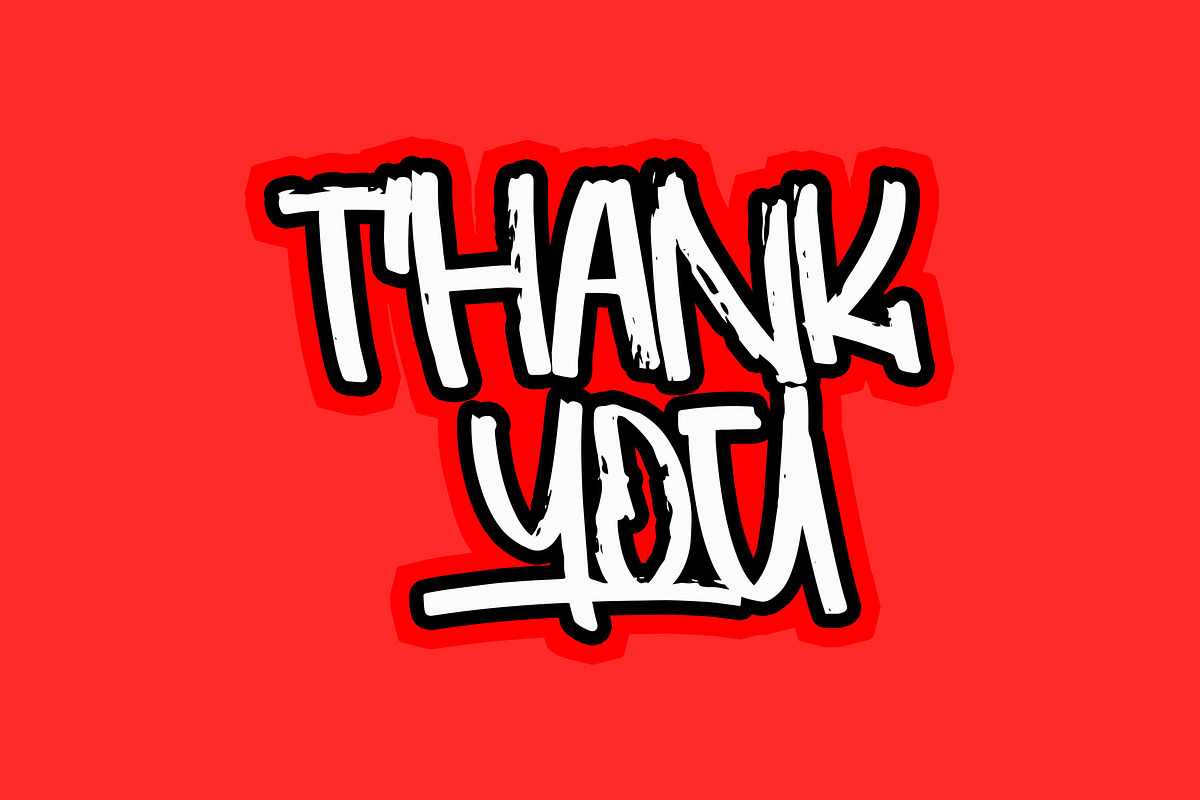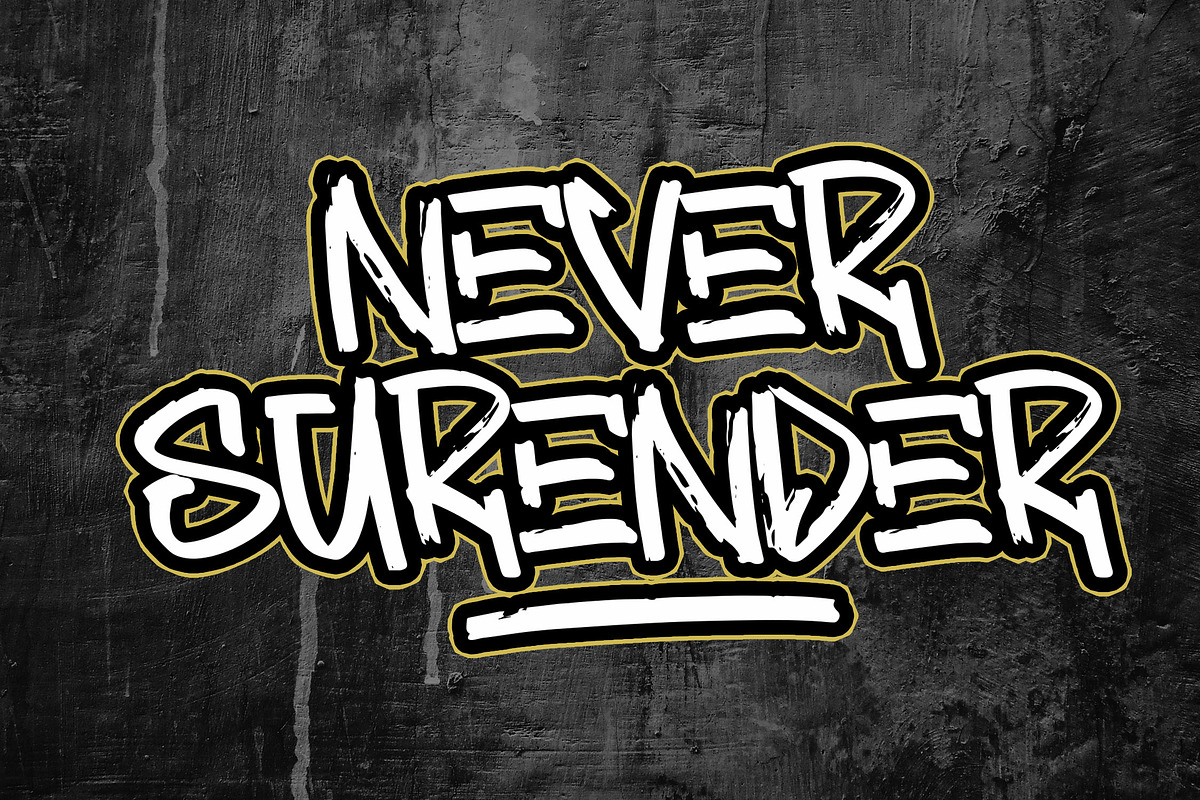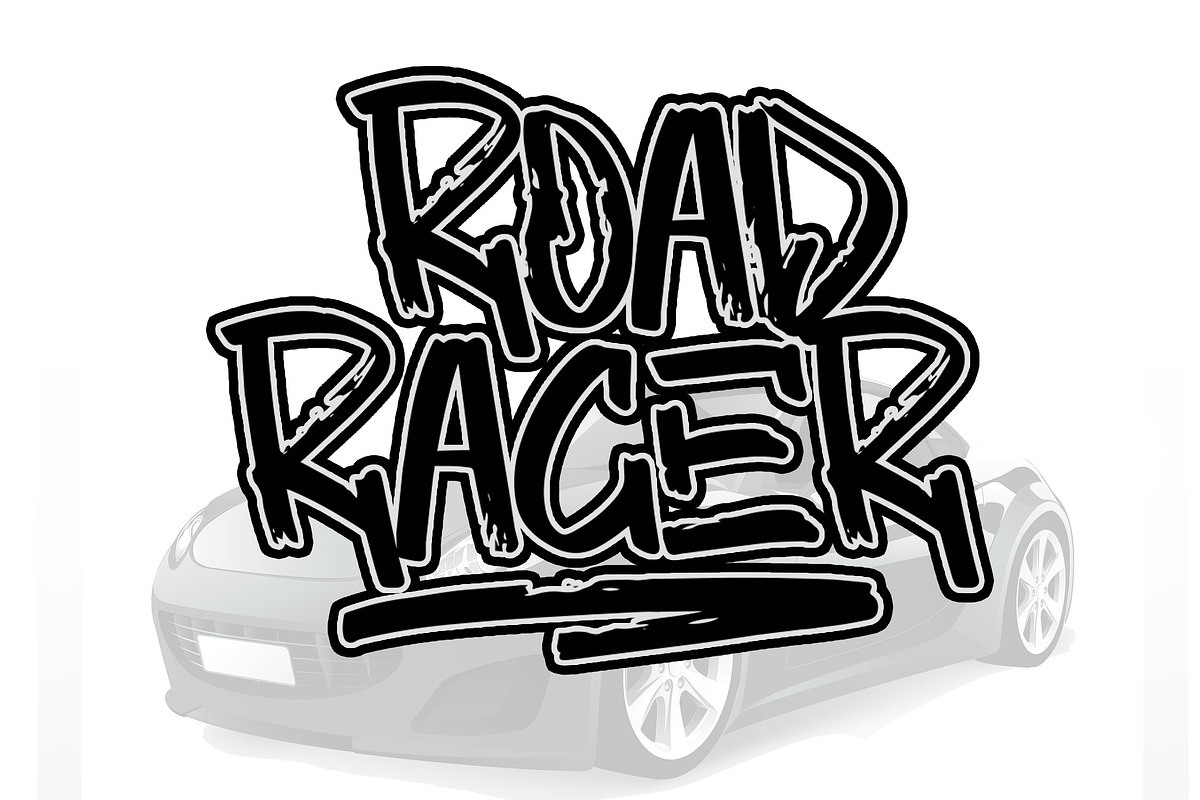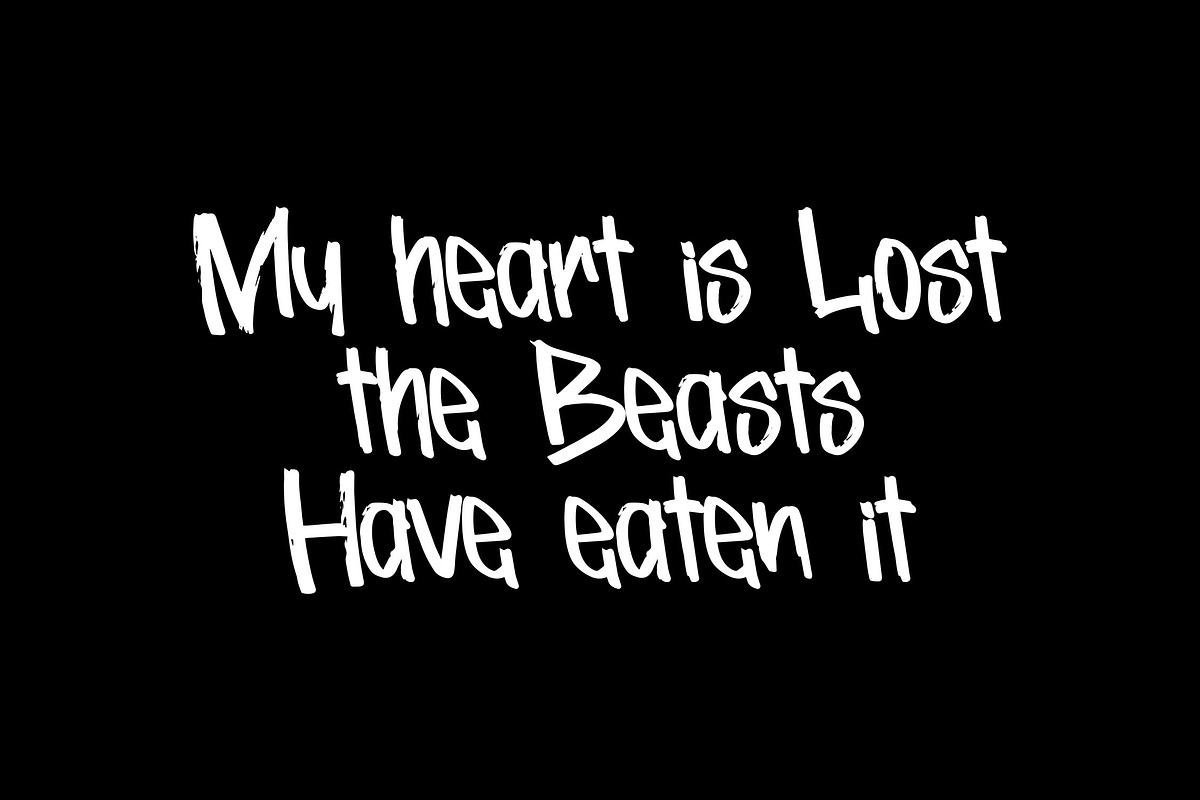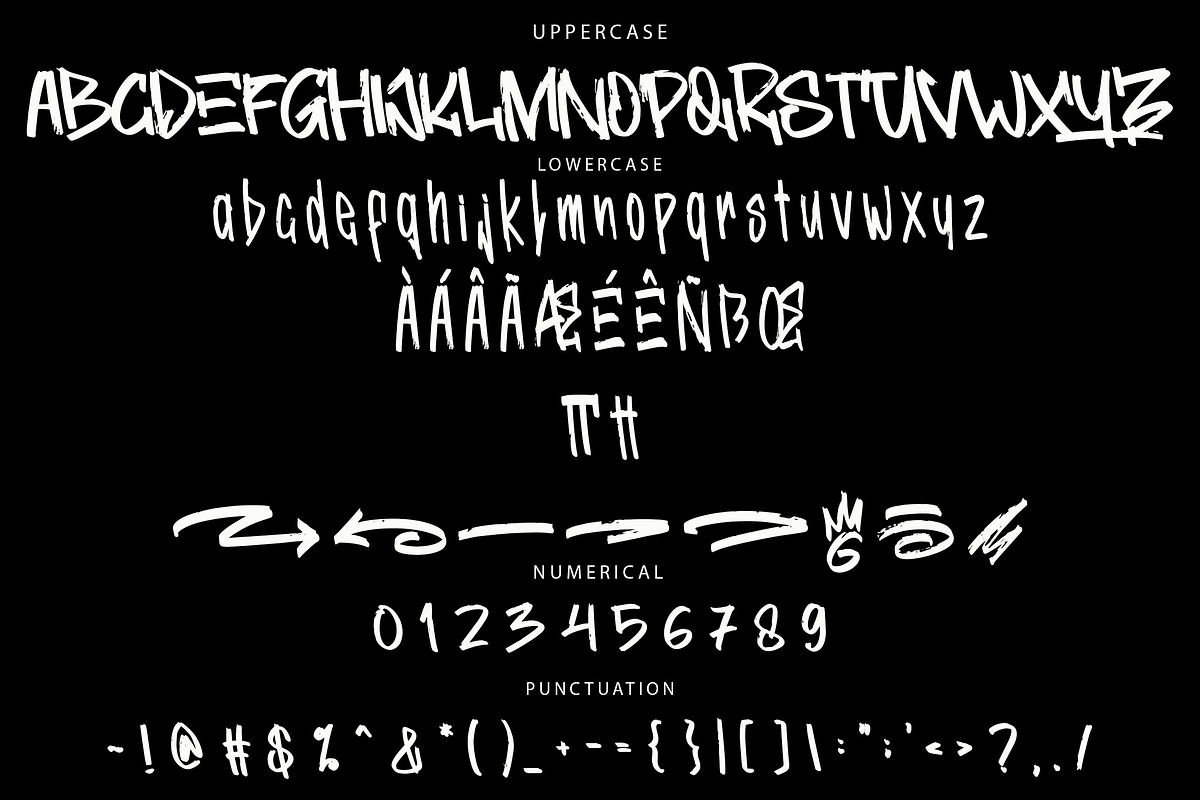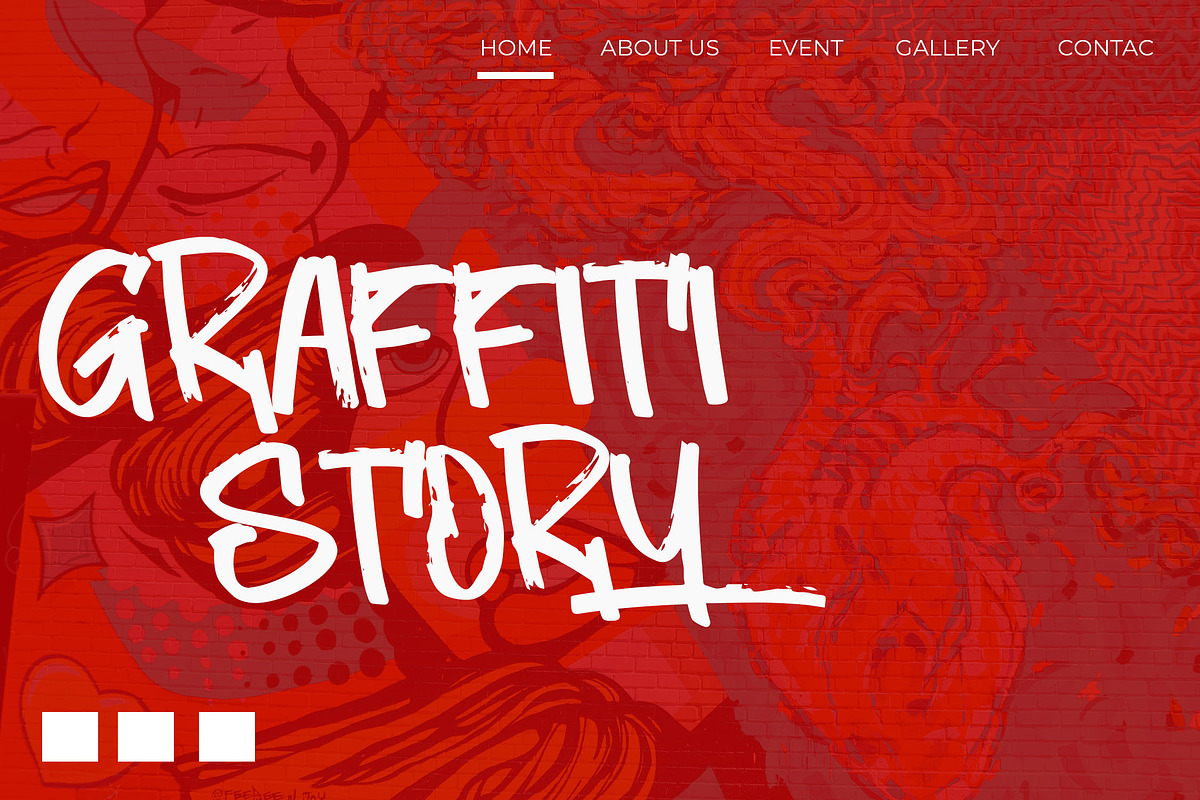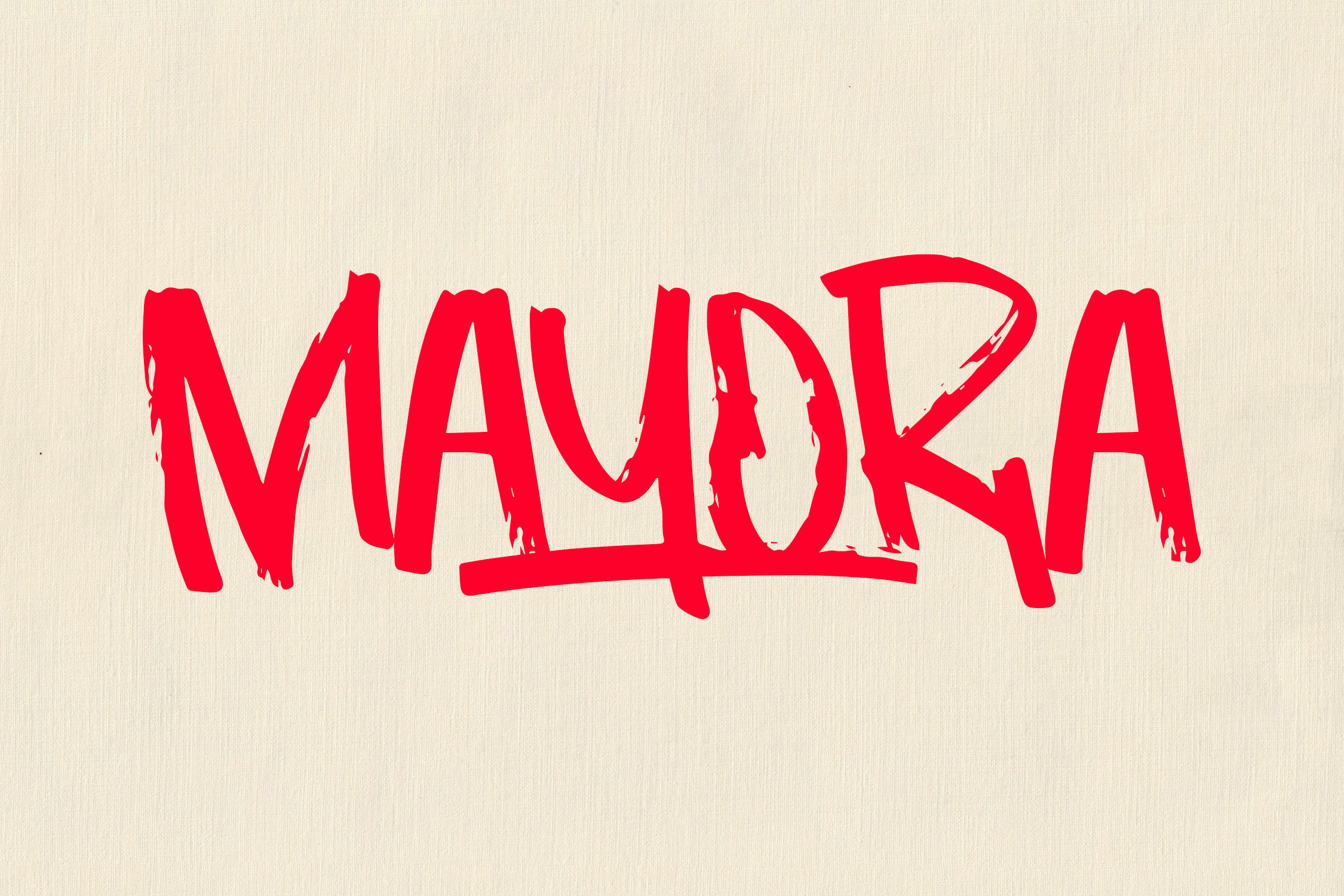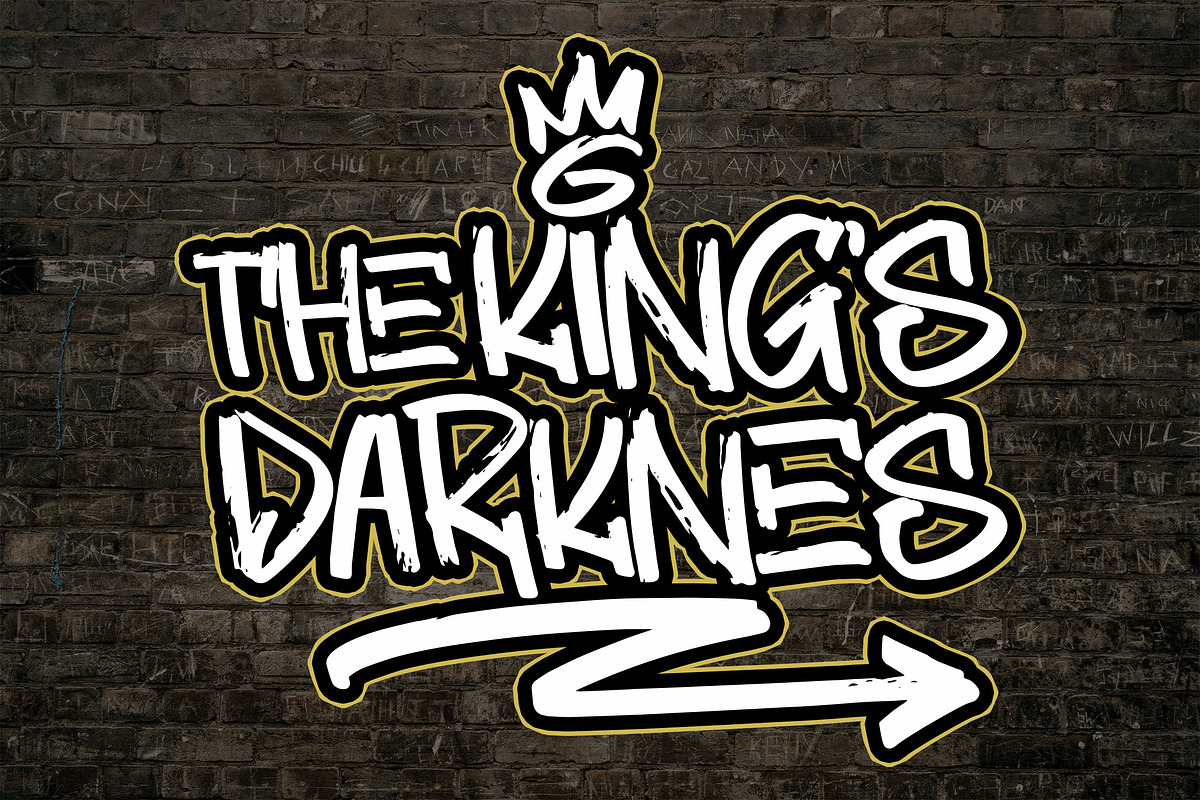
MAYORA Rough Brush Font
MAYORA: Bold Rough Brush Font
Introducing MAYORA, a bold brush font with a rugged, hand-drawn style that brings unique character shapes to any design. Perfect for adding a raw, artistic touch, MAYORA enhances the visual impact of branding, posters, apparel, and more. Its distinctive, bold look adds depth and appeal, making it ideal for edgy, eye-catching projects.
- Ligatures & Stylistic Alternates: Customize text with creative options.
- Swashes & Multilingual Support: Adds global accessibility and expressive flair.